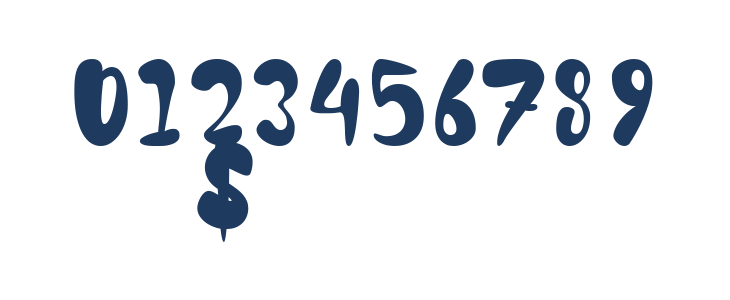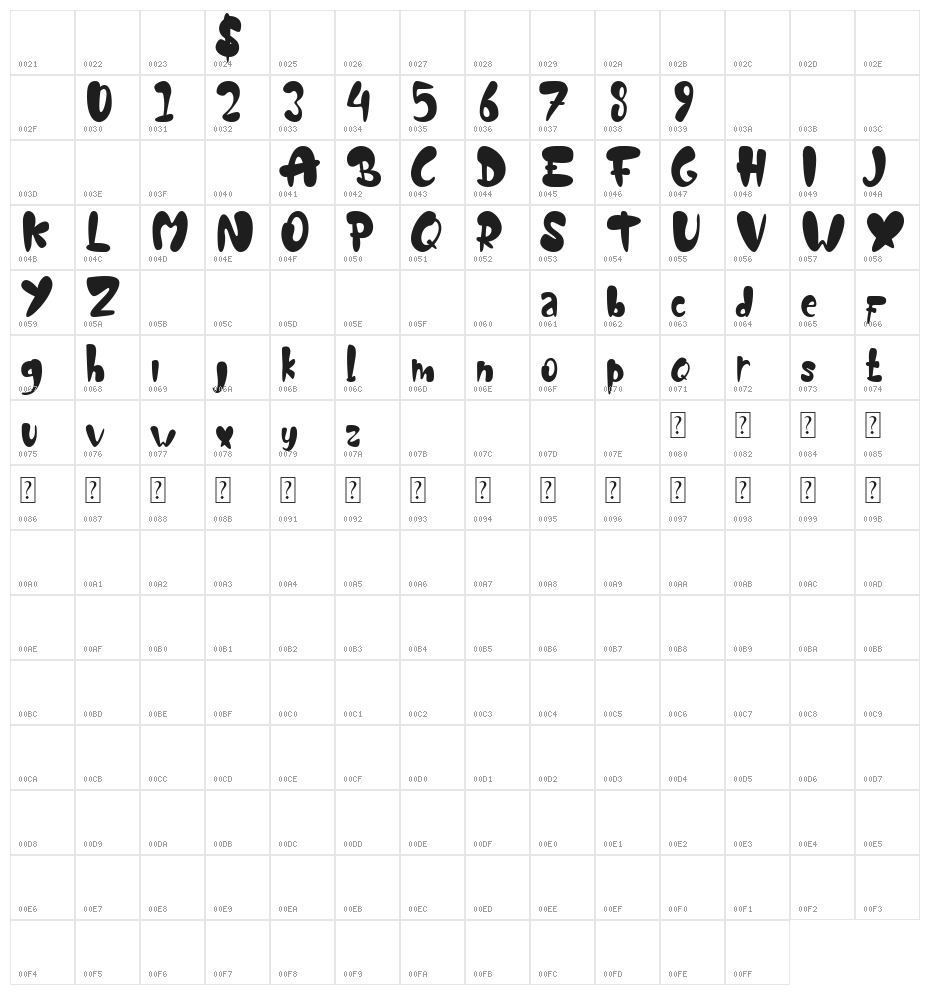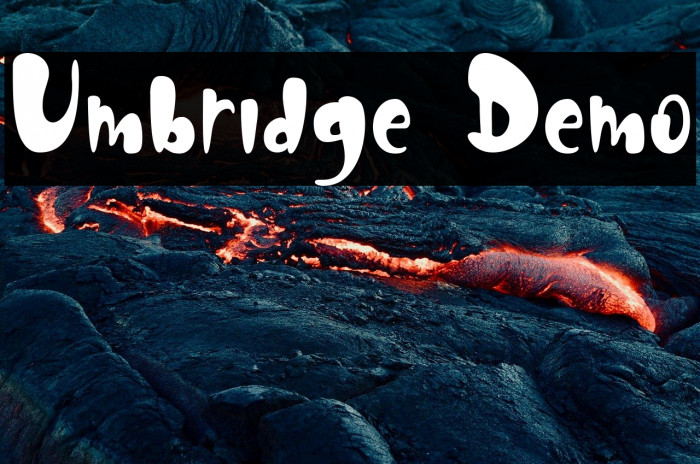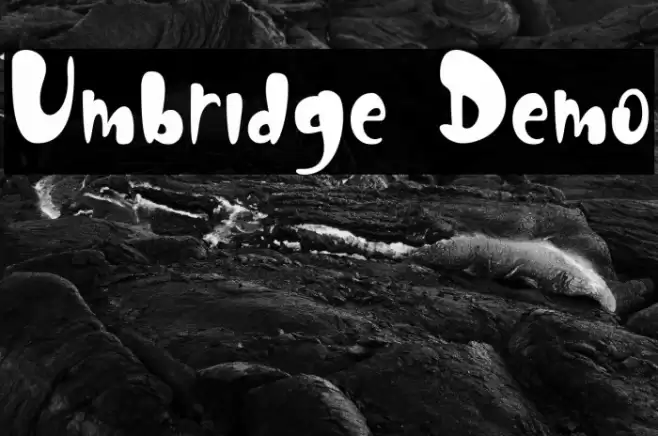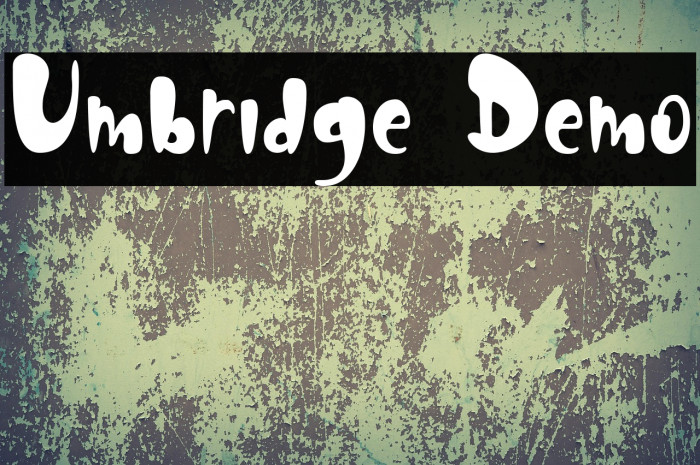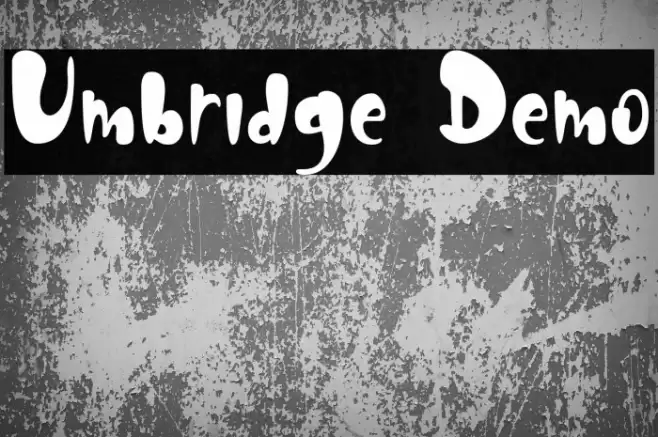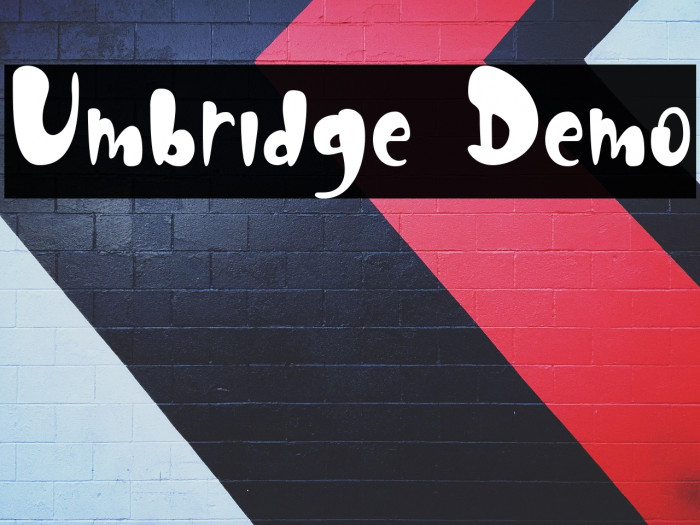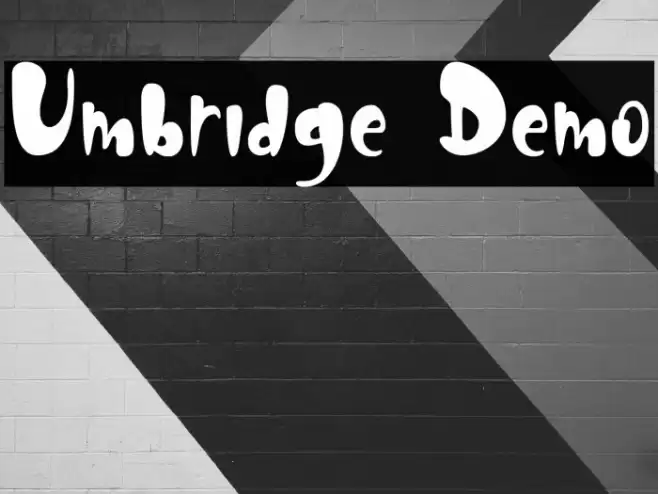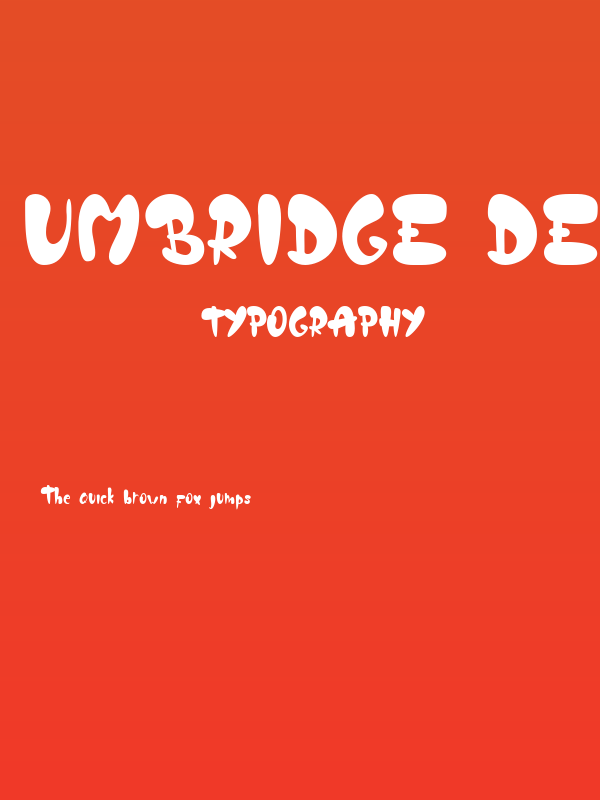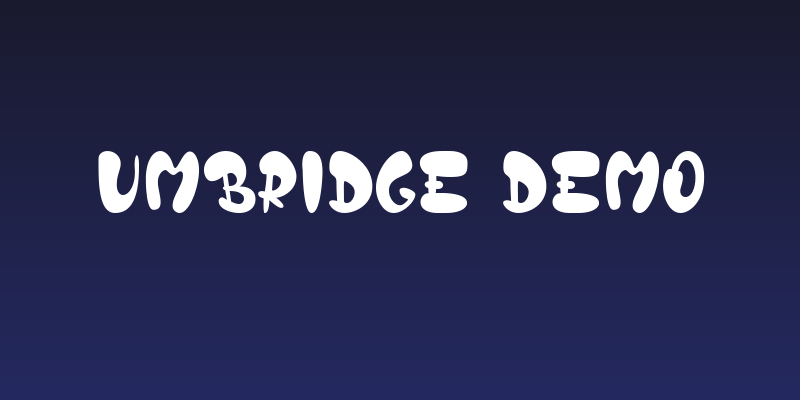
Umbridge Demo Font
Umbridge Demo Description
This font features a playful and bold design with thick, rounded strokes that give it a whimsical and friendly appearance. The characters are highly stylized, with exaggerated curves and a bubbly aesthetic, making it stand out in any design. The uppercase and lowercase letters maintain a consistent style, with a slight slant that adds to its dynamic feel. The numbers and special characters follow the same playful theme, ensuring a cohesive look across all text elements. This font's unique style makes it ideal for projects that require a fun and engaging visual impact.